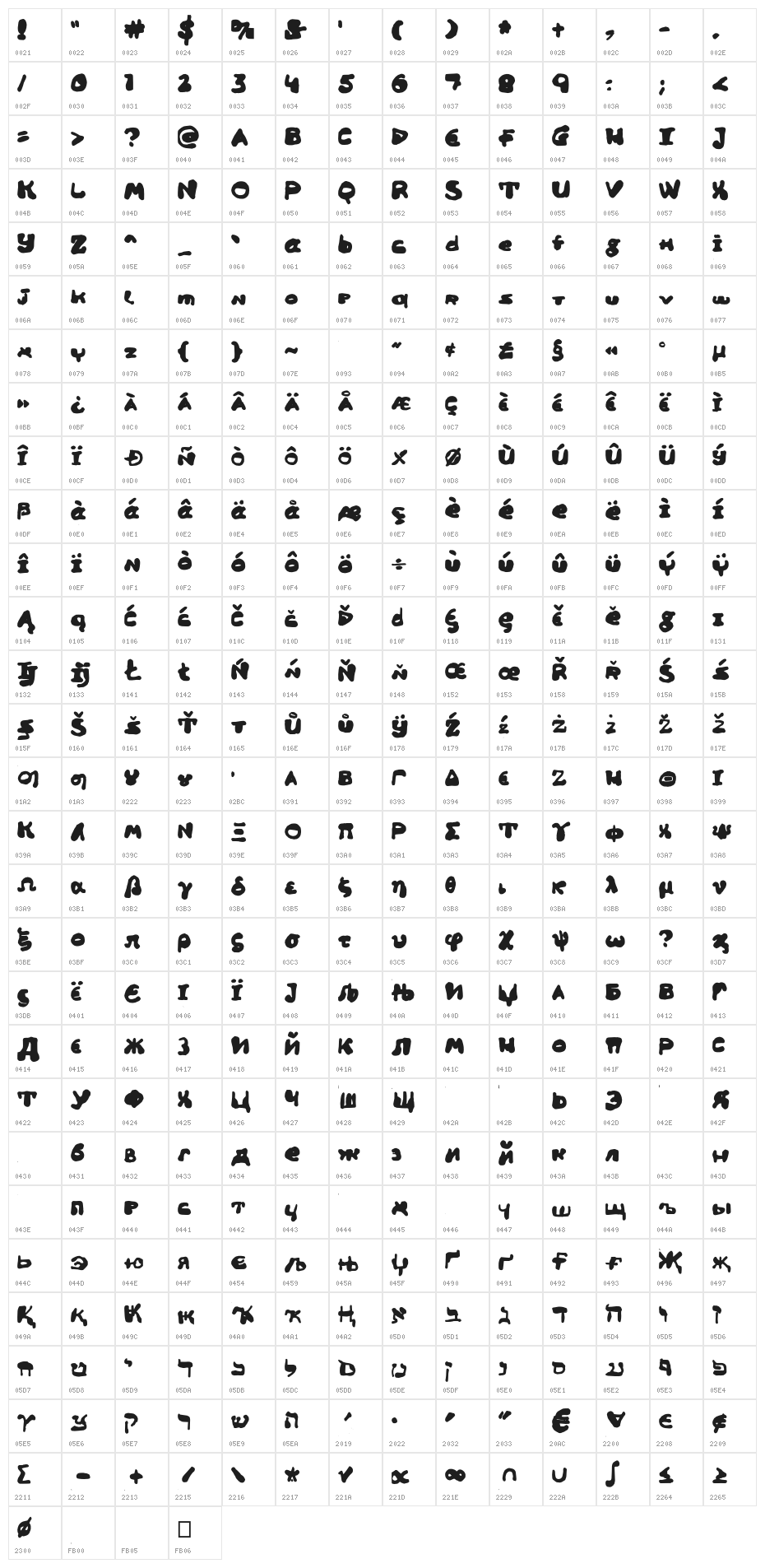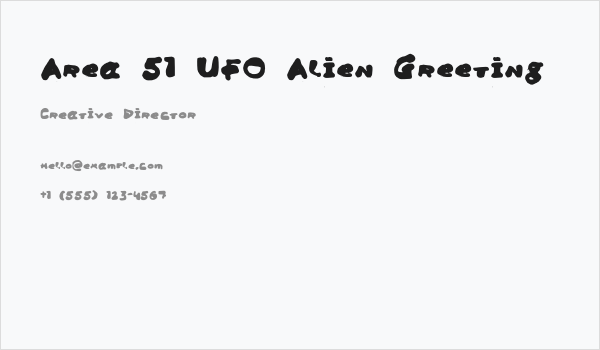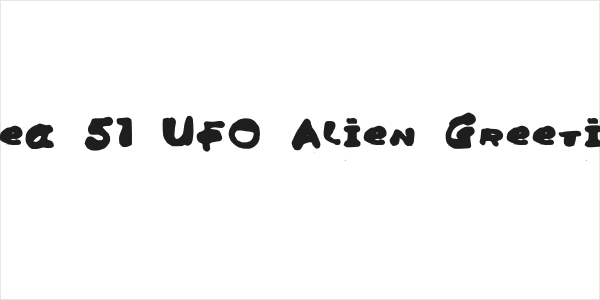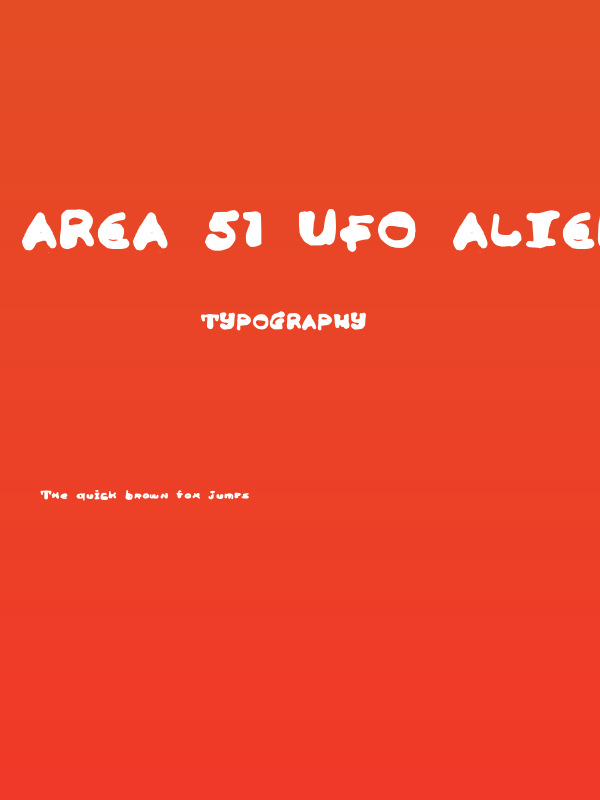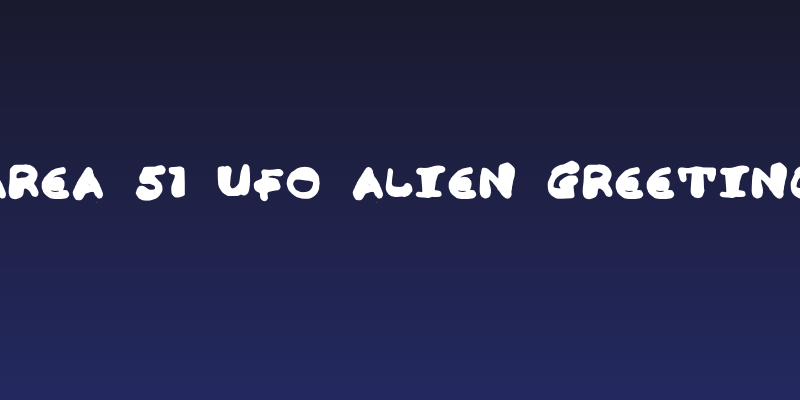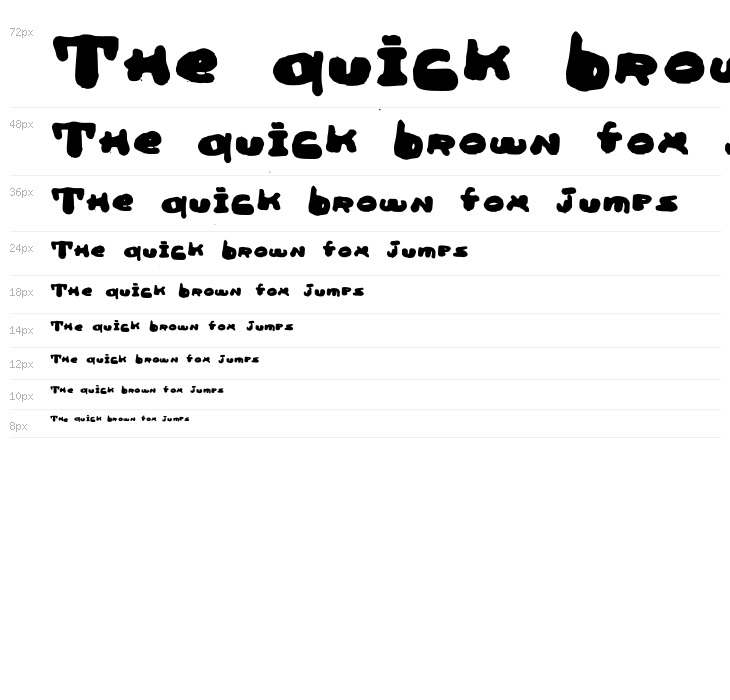
Area 51 UFO Alien Greeting Font
Area 51 UFO Alien Greeting Description
This font features a playful and bold design with a distinctly extraterrestrial theme. The characters are rounded and irregular, giving them a hand-drawn appearance that evokes a sense of whimsy and creativity. The uppercase and lowercase letters maintain a consistent style, with thick strokes and a slightly uneven baseline that adds to the quirky aesthetic. The numbers and special characters follow the same design principles, ensuring a cohesive look across all elements. This font is ideal for projects that require a fun and unconventional touch, such as children's books, sci-fi themed events, or unique branding materials.
| Proposed Projects | Children's books, sci-fi themed events, unique branding materials. |